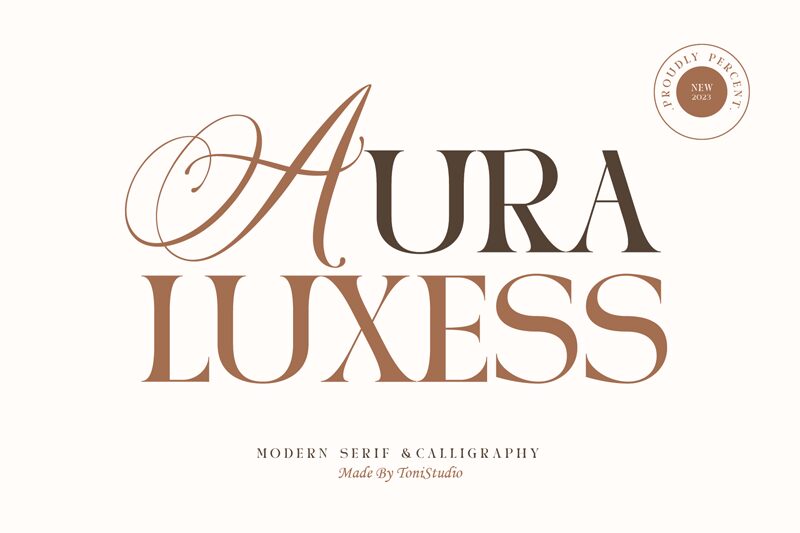
AURA LUXESS
AURA LUXESS is the perfect modern serif font for projects that require an elegant touch. This typeface from ToniStudio boasts a sleek and sophisticated style that is sure to elevate any design. With its clean lines and contemporary aesthetic, AURA LUXESS is ideal for branding, editorial layouts, and high-end product packaging. The semi-bold font weight adds just the right amount of emphasis to important text while maintaining readability. Its medium width makes it versatile for both short and long-form content. Whether you're designing a luxury fashion magazine or creating a chic website, AURA LUXESS will add a touch of refinement to your project.